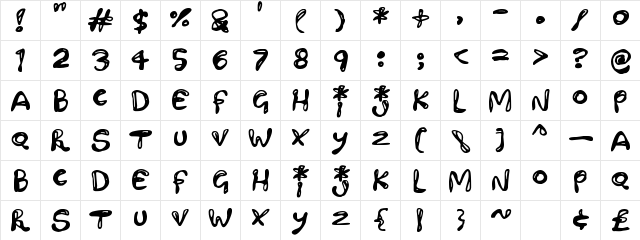
Paintling Regular Free Font
Paintling Regular
Design Context for Paintling
Paintling is a composed and adaptable typeface that performs quietly and consistently across a wide range of design contexts.